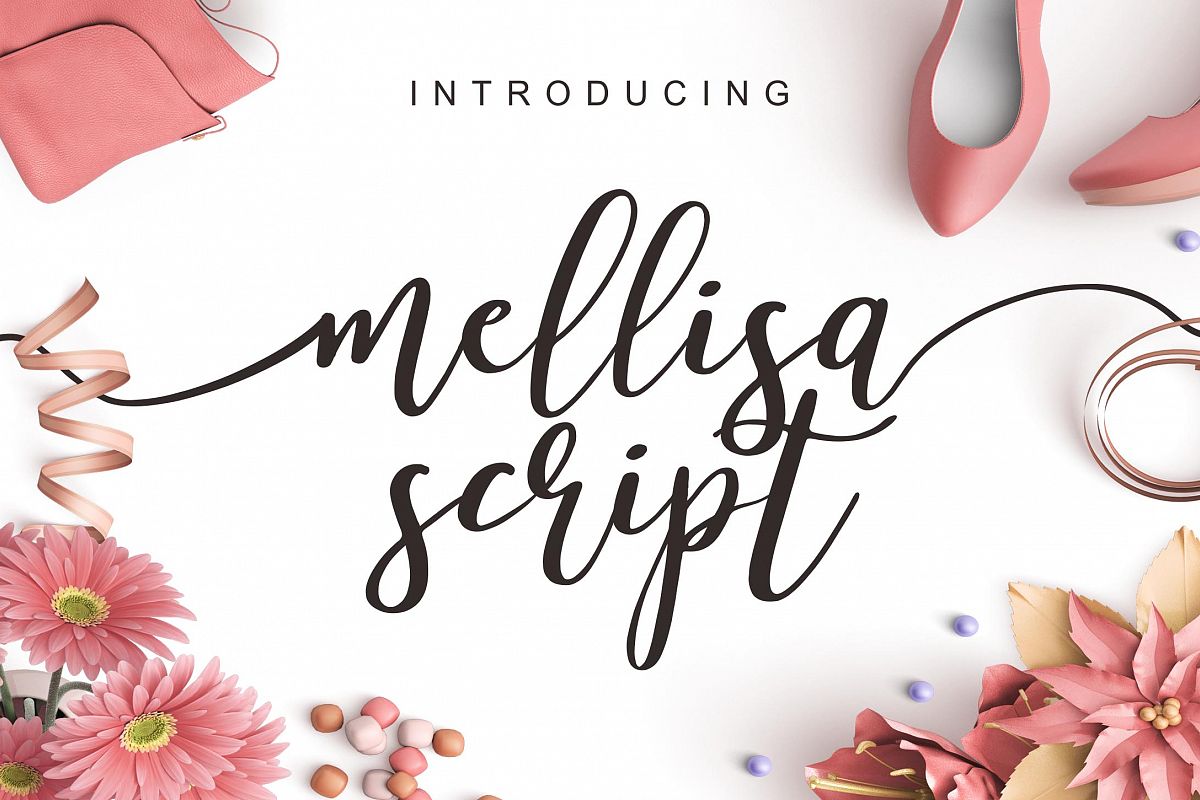
Mellisa Script and Extras
This is the newest product we created. The Mellisa script with extras.
This font is beautiful and allowing you to make great typography.
The
Mellisa is good for logo, brand, poster, quotes, wedding invitation,
clothing, and apparel.
(Uppercase, lowercase alternates, titling and swash, ligatures, stylistic set)
(24 hand-drawn elements, just type a to z)